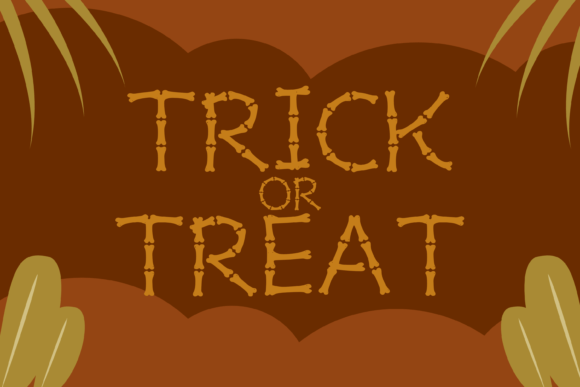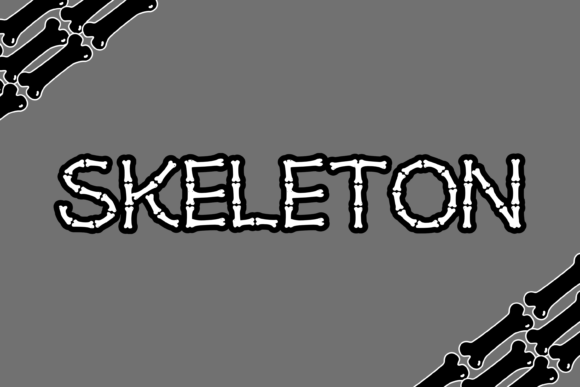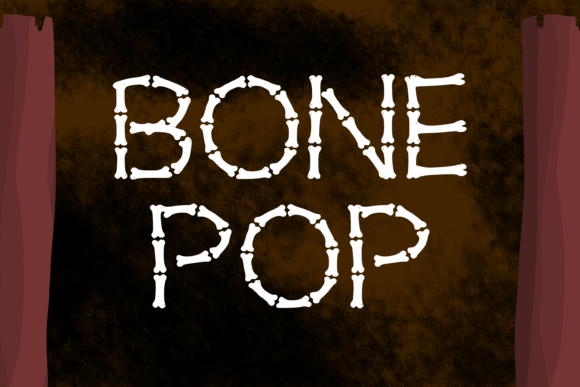
Unleash the Quirkiness: Discover the Bone Pop Font
Are you tired of using the same old fonts for your designs? Look no further! Introducing Bone Pop, a uniquely entertaining font that adds a touch of quirkiness to any project. Inspired by the fascinating shapes of bones, Bone Pop is a striking and robust font that is sure to grab attention.
The Inspiration Behind Bone Pop
Bone Pop’s design is influenced by the intriguing shapes of bones, bringing a sense of vibrancy and playfulness to the world of typography. The font’s creator aimed to capture the essence of human anatomy, transforming it into a visually appealing and entertaining experience. The result is a font that is both whimsical and captivating, perfect for designers and crafters looking to add a dash of personality to their work.
A Font that’s Anything but Ordinary
Bone Pop’s letters are adorned with whimsical bone-like details, giving the font a seemingly jovial touch. The unique design elements make it an excellent choice for projects that require a bit of edge and personality. Whether you’re creating spine-chilling Halloween graphics, terrifying event announcements, or imaginative endeavors, Bone Pop is the perfect fit. Its quirky and offbeat style adds a touch of humor and lightheartedness, making it an excellent addition to any design.
Bone Pop’s versatility makes it an excellent choice for a wide range of projects. Here are a few ideas to get you started:
- Halloween Graphics: Create spooky yet playful designs that will leave a lasting impression. Bone Pop’s bone-like details and quirky style make it an excellent fit for Halloween-themed projects.
- Event Announcements: Add a touch of quirkiness to your event announcements, making them stand out from the crowd. Bone Pop’s attention-grabbing design ensures that your event will be remembered.
- Brand Identity: Give your brand a unique and playful personality with Bone Pop. Its robust and striking letters make it an excellent choice for logos, packaging, and marketing materials.
- Imaginative Endeavors: Whether you’re working on a creative project or a DIY craft, Bone Pop’s whimsical design adds a touch of personality and fun.
Why Choose Bone Pop?
Bone Pop is more than just a font – it’s an attention magnet. Its unique design elements and quirky style make it an excellent choice for designers and crafters looking to add a dash of personality to their work. Here are a few reasons why Bone Pop stands out:
- Unique Design: Bone Pop’s bone-like details and whimsical style set it apart from other fonts.
- Attention-Grabbing: The font’s robust and striking letters ensure that your design will grab attention.
- Versatile: Bone Pop is suitable for a wide range of projects, from Halloween graphics to brand identity and packaging.
| Font Name | Bone Pop Font |
| Author | TaralArt |
Bone Pop is a uniquely entertaining font that’s sure to add a touch of quirkiness to any project. Its striking and robust letters, adorned with whimsical bone-like details, make it an excellent choice for designers and crafters looking to create attention-grabbing designs. Whether you’re working on Halloween graphics, event announcements, brand identity, or imaginative endeavors, Bone Pop is the perfect fit. So why settle for ordinary fonts when you can unleash the quirkiness of Bone Pop?